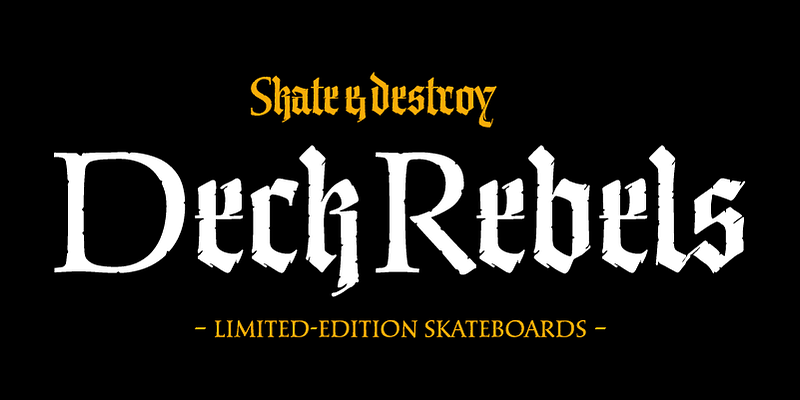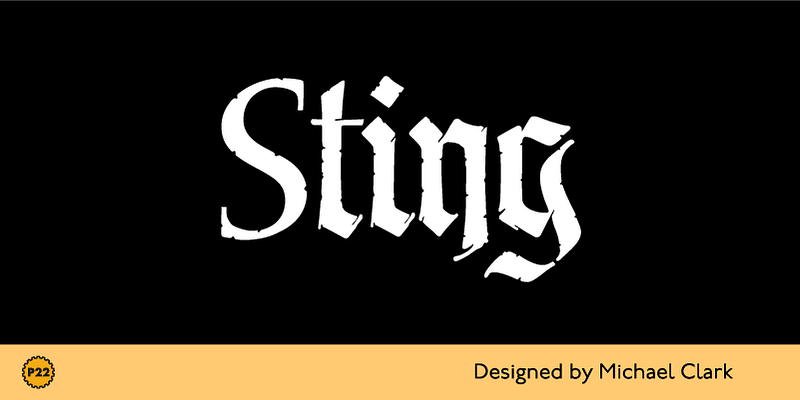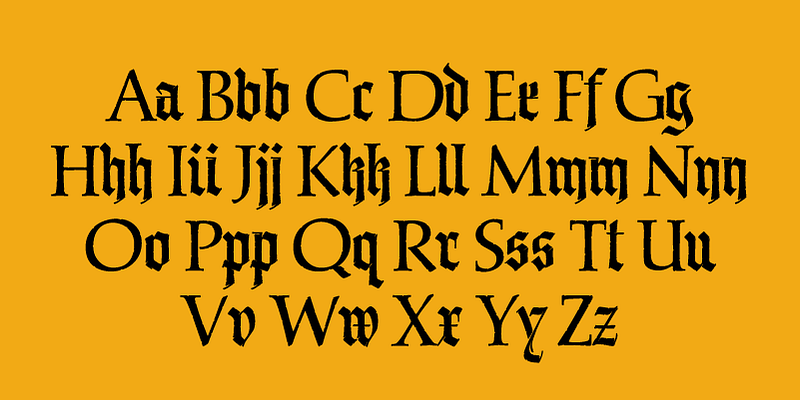
P22 Sting is a distinctive hand-lettered hybrid merging Blackletter lowercase characters with Roman capitals. This roughly textured calligraphic style by Michael Clark was crafted over several years using pen and ink and is now digitized for designers and typographers. It’s especially well-suited to creating a vintage look for historical titling, gothic music, apparel design, commemorative documents, themed restaurant signage, food packaging, and other decorative or themed branding.